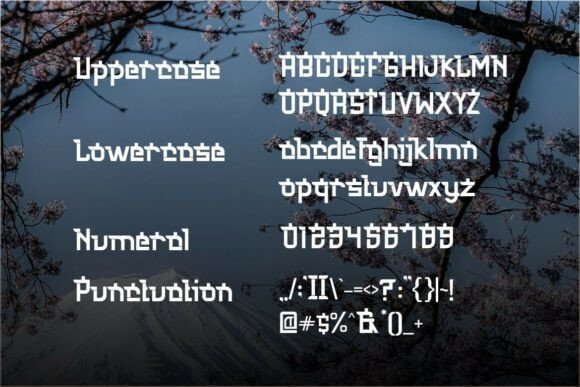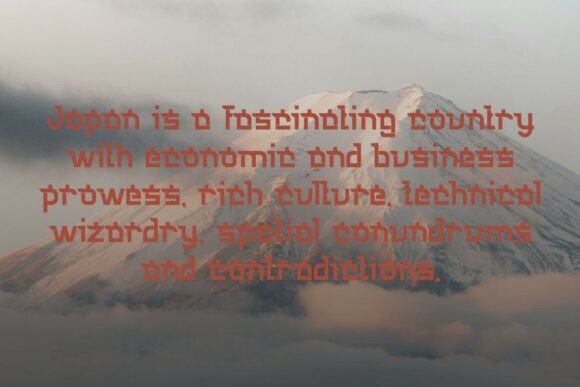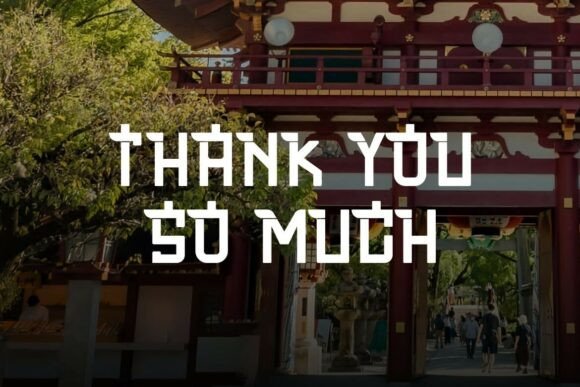
Introduction to Onichan Font
Onichan | Japanese Style Font Bring an authentic touch of the East to your creative work with Onichan, a display font inspired by the structural beauty of Japanese Kanji and traditional architecture.
With its horizontal emphasis and stylized β€œtemple-roof” terminals, it captures the essence of Asian aesthetics in a modern, readable Latin alphabet It is the perfect choice for fusion restaurant branding, travel photography, martial arts themes, and cultural event posters.
Key Features of Onichan Font